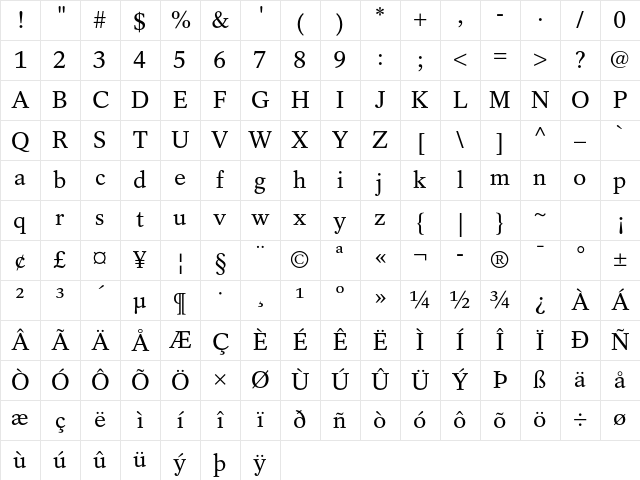
Rotation LT Std Roman
Designer: Arthur Ritzel
Design Context for Rotation LT Std
Rotation LT Std is a composed and adaptable typeface that performs quietly and consistently across a wide range of design contexts. Its slender proportions lend an understated elegance to any composition.
Pro Tip: Use Rotation LT Std in both headline and body roles to test its range before committing to a single application.